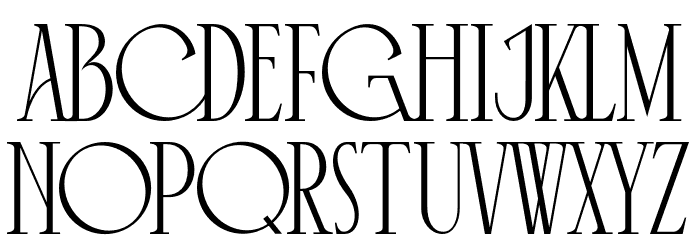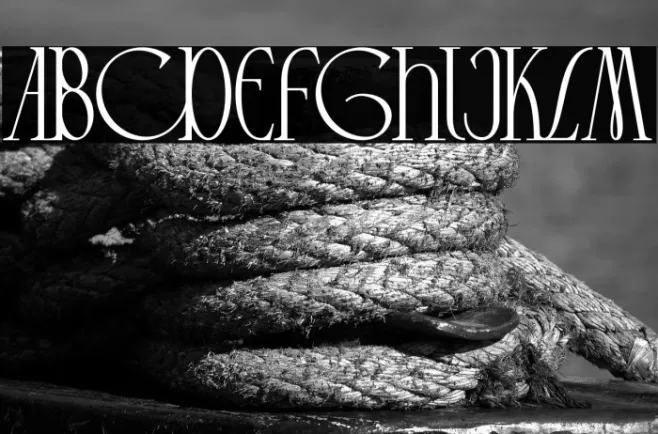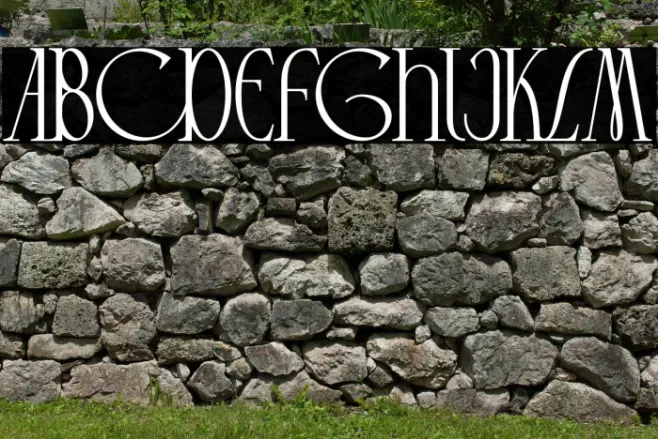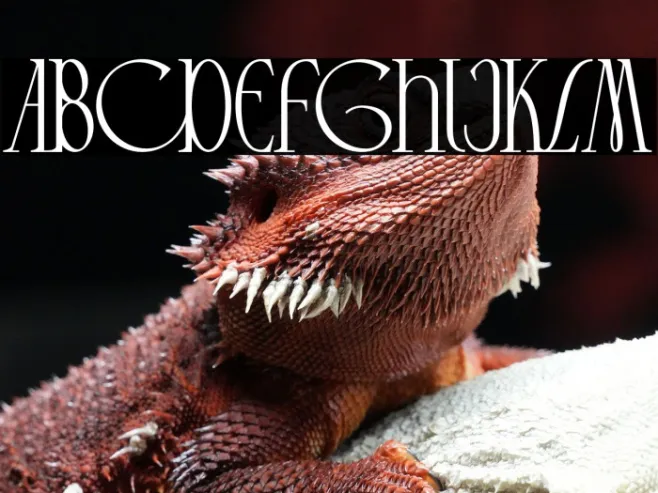
Cyrano DEMO Font
This font features a unique and artistic design, characterized by its elongated and elegant letterforms. The uppercase letters exhibit a blend of sharp angles and smooth curves, creating a sophisticated and stylish appearance. The font's distinctiveness is further enhanced by the incorporation of geometric elements, such as circles and lines, within certain characters. This adds a decorative flair, making it suitable for creative and expressive design projects. The overall aesthetic is both modern and classic, offering versatility for various applications.
An artistic and elegant font with geometric elements and elongated letterforms.
- Proposed Projects: Ideal for branding, poster design, book covers, and any project requiring a touch of elegance and creativity.